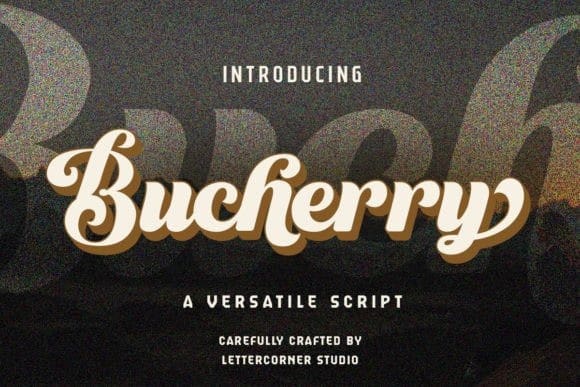
Bucchery Retro Font
Bucchery Retro Font, is a harmonious blend of elegance and contemporary flair, seamlessly adaptable to modern and classic design landscapes. It effortlessly radiates timeless elegance and is tailored to meet the needs of professionals seeking designs that are both sophisticated and versatile.
Easy to use yet rich in detail, this font is the ideal choice for designers who value both beauty and functionality in their work. Explore this font collection now and infuse your designs with the captivating essence of calligraphy.